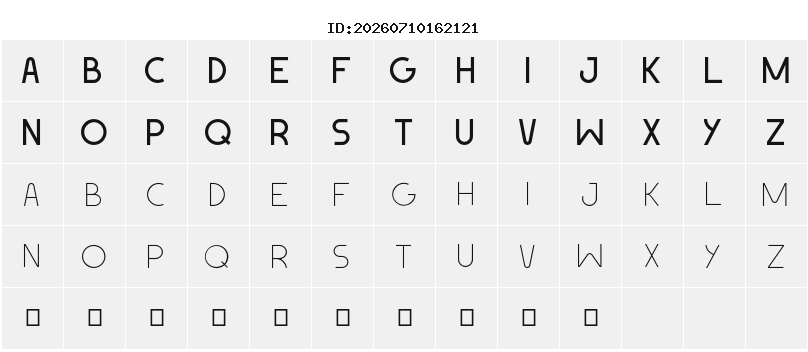
Geomaniac Preview
• Font Name: Geomaniac
About Geomaniac.otf
Geomaniac.otf is a modern, elegant sans-serif font designed for ultimate readability and visual harmony. Perfect for branding, headlines, web design, and print materials.